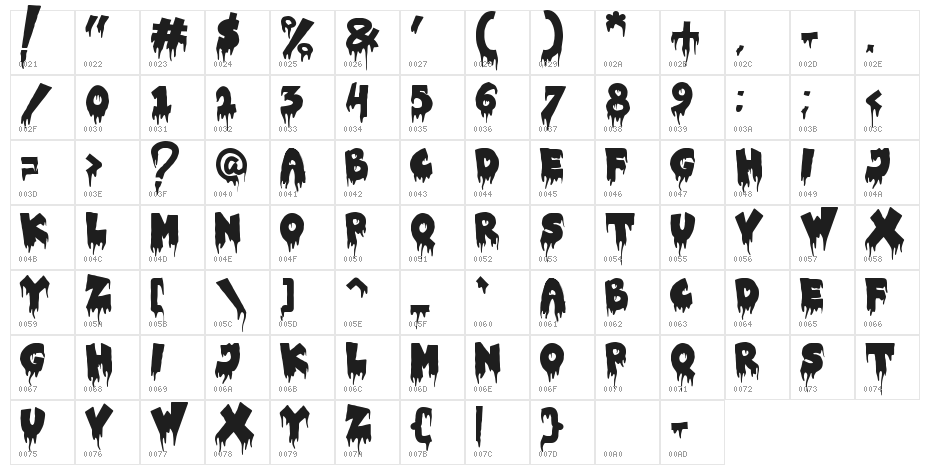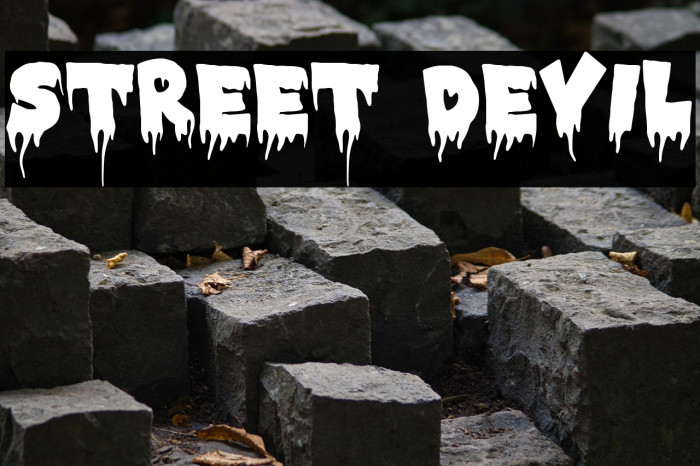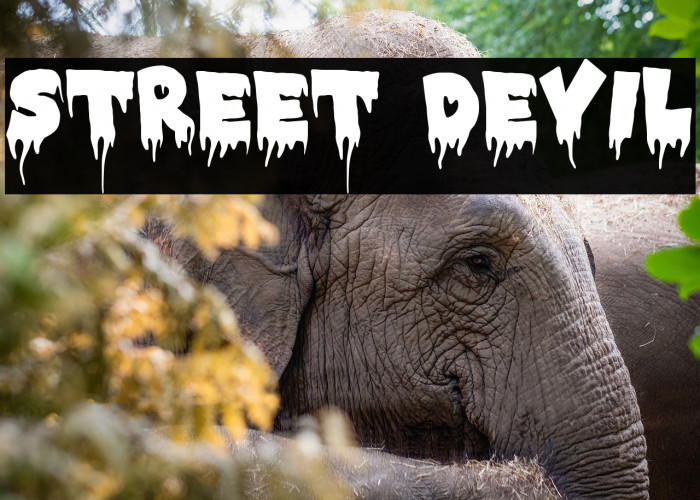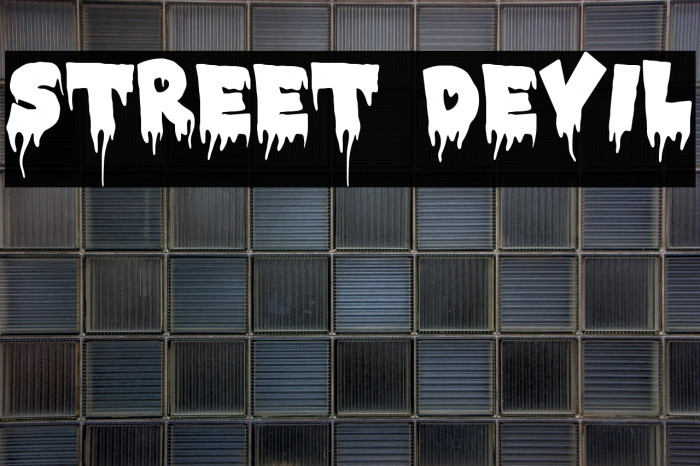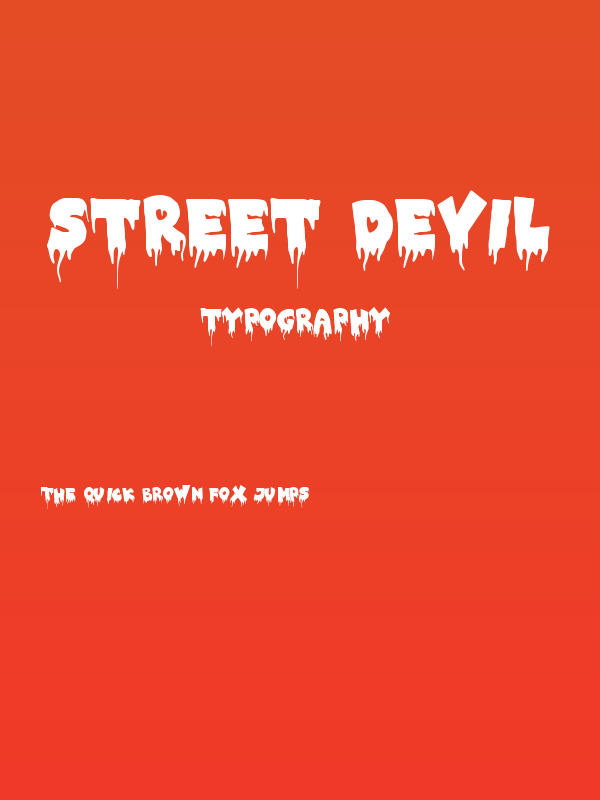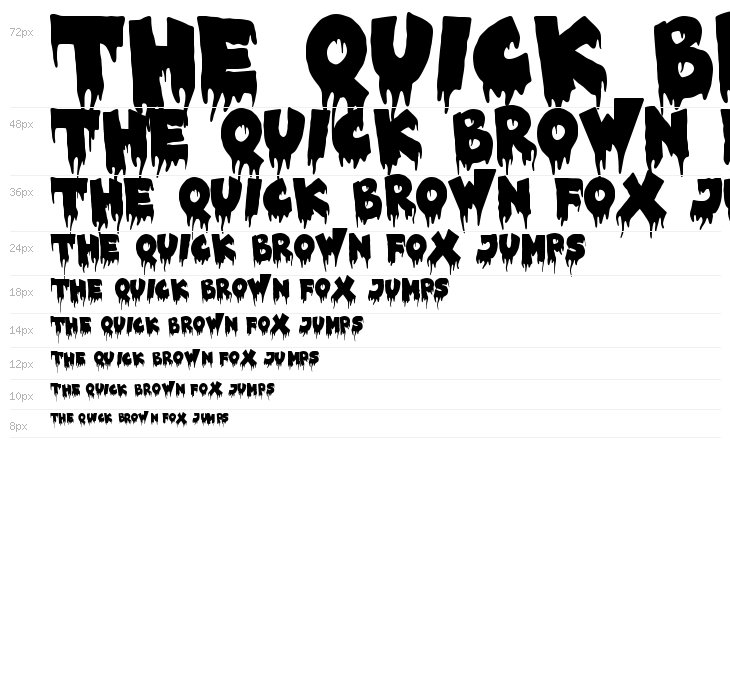
STREET DEVIL Font
STREET DEVIL Description
This font features a bold and dramatic style with a dripping effect that gives it a spooky, horror-themed appearance. The characters are thick and heavy, with uneven edges that resemble melting or dripping liquid. This unique design creates a sense of movement and fluidity, making it ideal for eye-catching displays. The uppercase and lowercase letters maintain a consistent style, while the numbers and special characters follow the same dripping motif, ensuring a cohesive look across all text elements.
| Proposed Projects | Perfect for Halloween-themed projects, horror movie posters, haunted house flyers, or any design requiring a spooky, dramatic effect. |